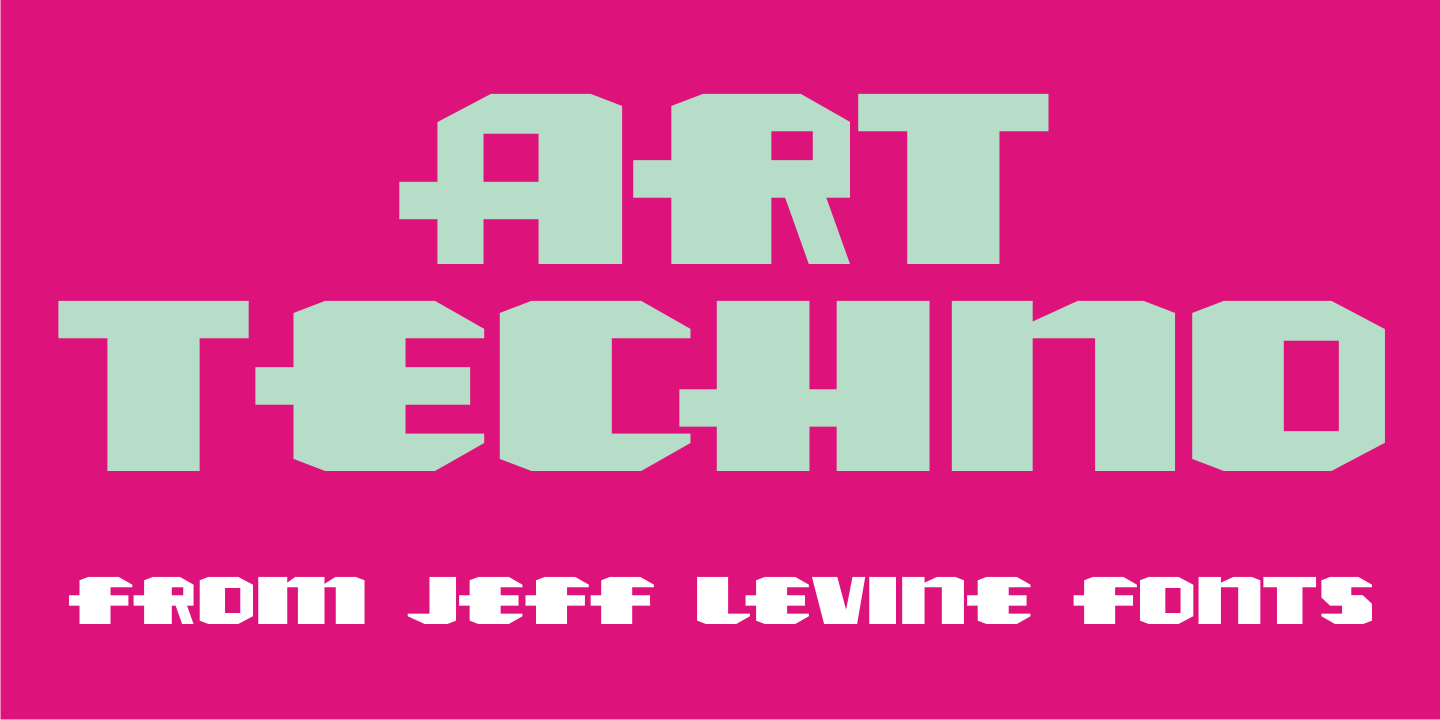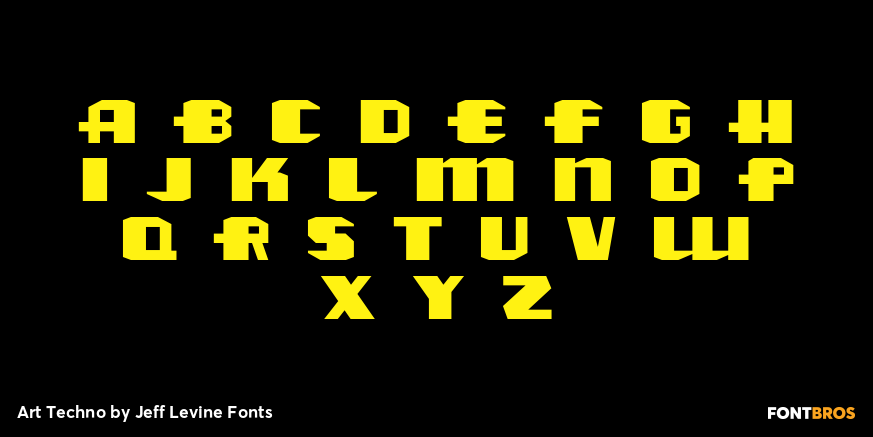
Art Techno
The simple song title "May I", found on the sheet music from the 1934 Bing Crosby-Carole Lombard film "We're Not Dressing" was hand lettered in a blocky, ultra-bold Art Deco design that foreshadowed the techno look of the 1970s and 1980s.
This became the basis for Art Techno JNL.